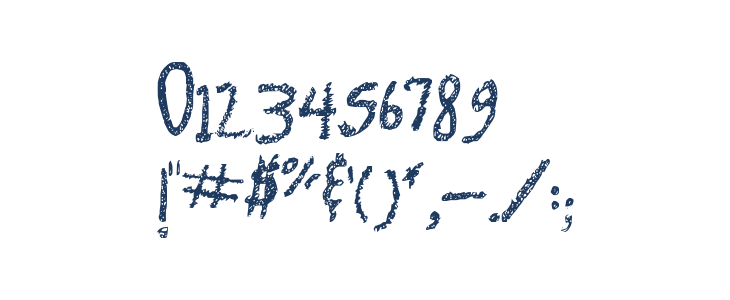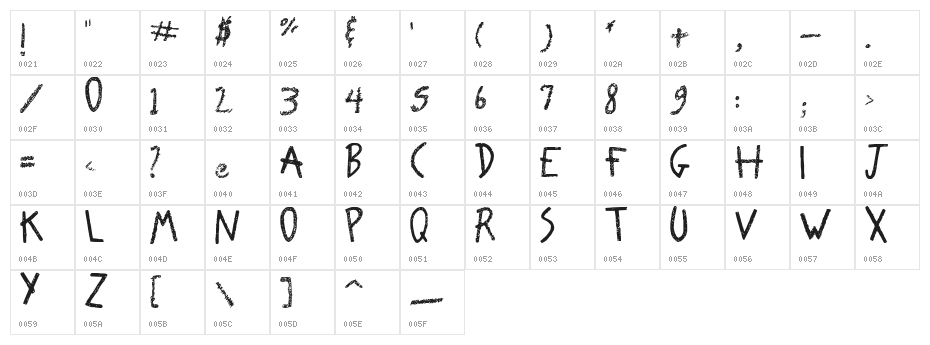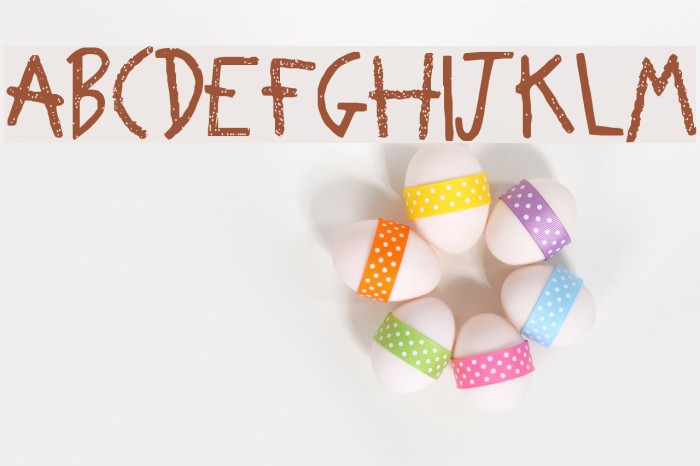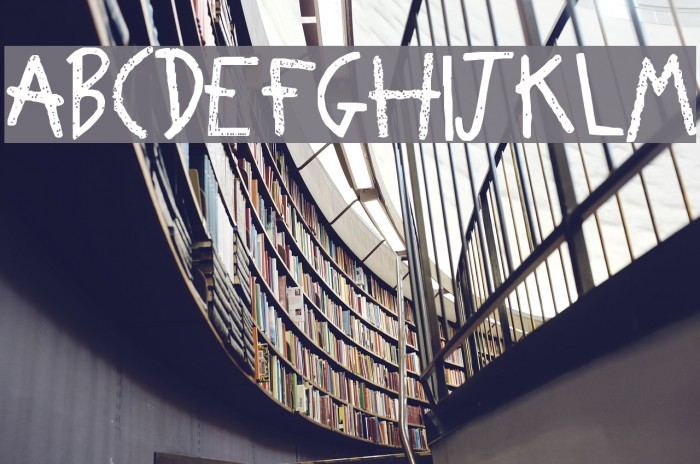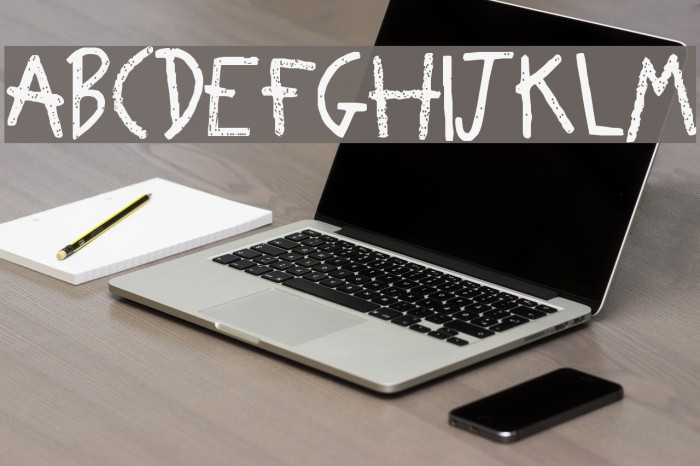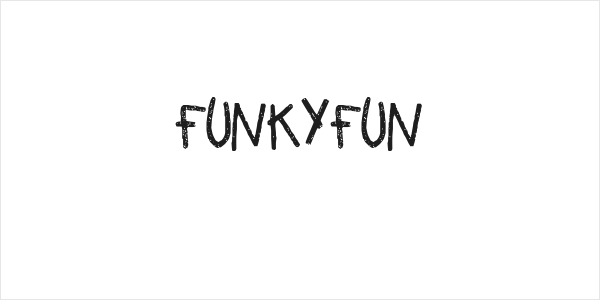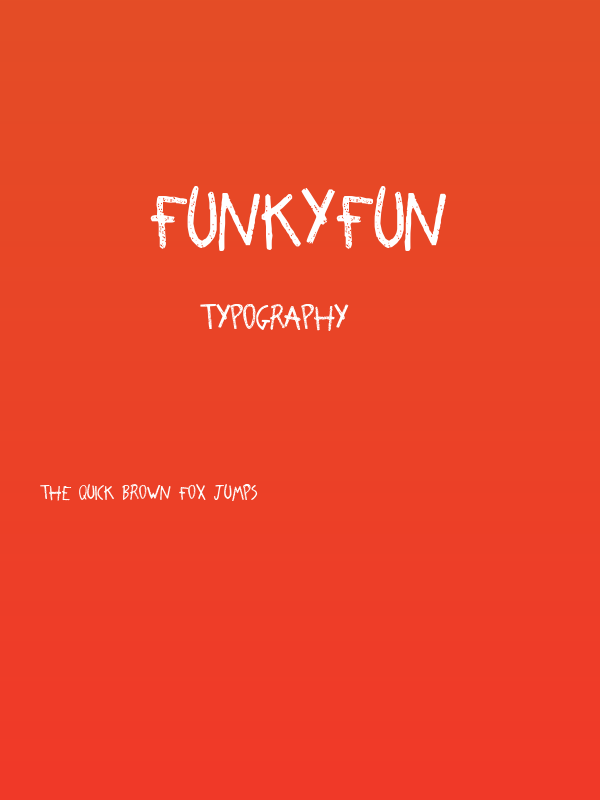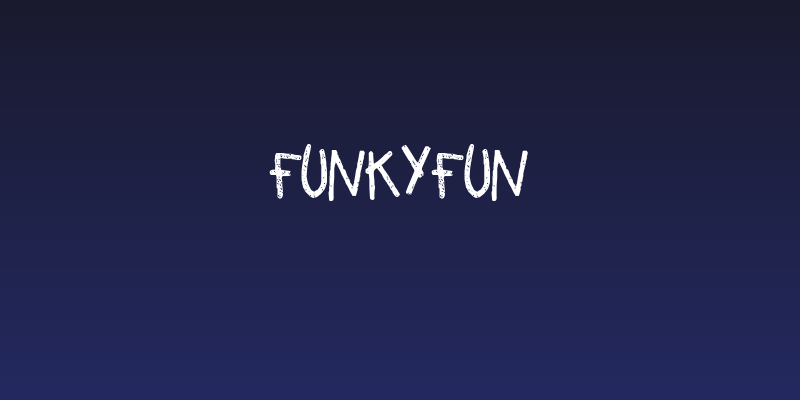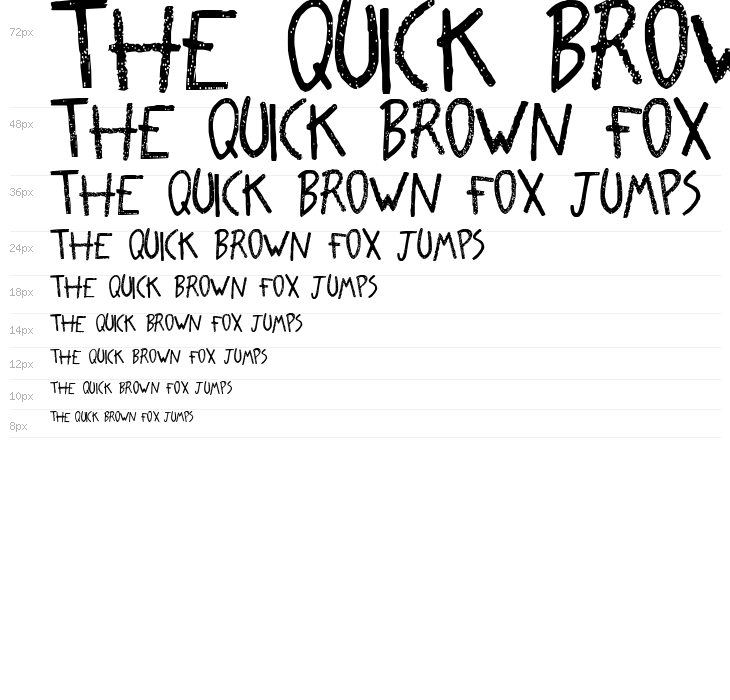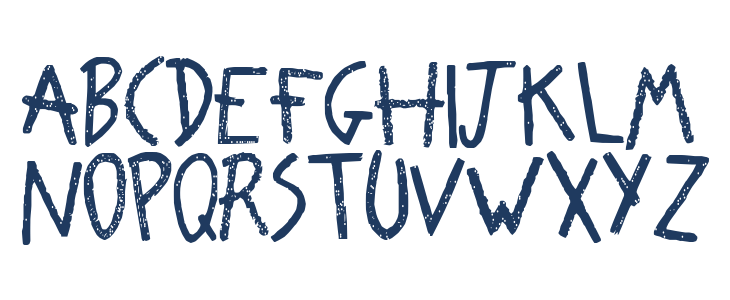
funkyfun Font
This font is a playful and energetic typeface that features a hand-drawn, doodle-like appearance. The letters are irregular and quirky, with a textured, sketchy fill that adds a sense of movement and spontaneity. The uppercase and lowercase letters maintain a consistent style, with exaggerated curves and angles that give each character a unique personality. Numbers and special characters follow the same whimsical design, making the font versatile for creative projects. Its informal and lively nature makes it perfect for designs that aim to capture a fun and youthful vibe.